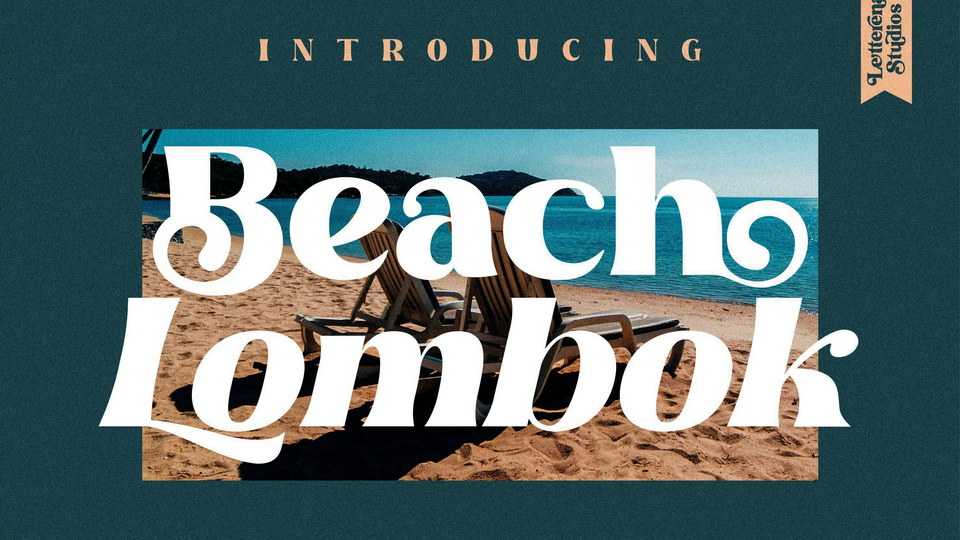
Download Beach Lombok font, a luxury vintage serif typeface. Beach Lombok looks beautiful on a variety of designs requiring a personalized style, such as wedding invitations, greeting cards, logos and so on.